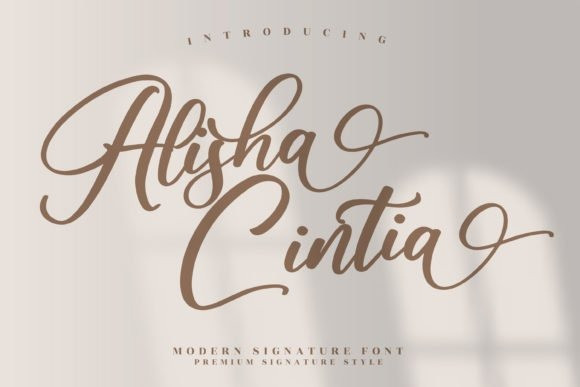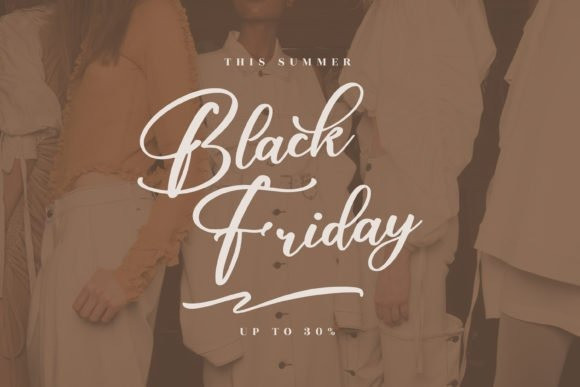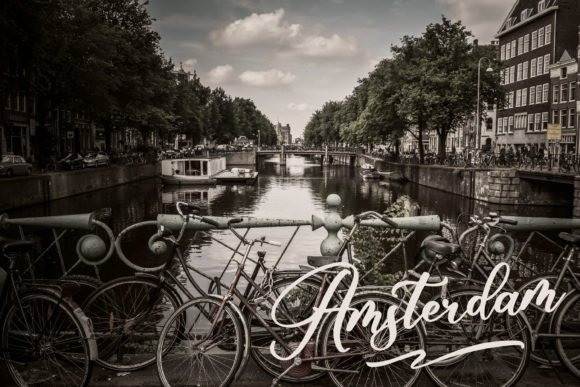
Alisha Cintia Font
Alisha Cintia is a lovely script font featuring charming, playful characters that seem to dance along the baseline. Alisha Cintia is PUA encoded which means you can access all glyphs and swashes with ease!